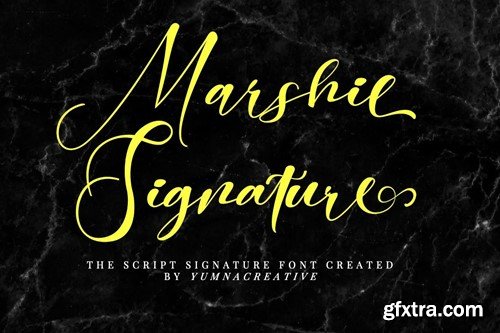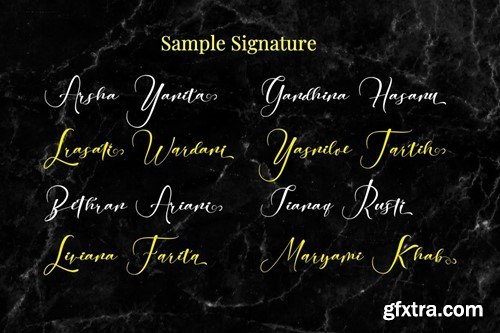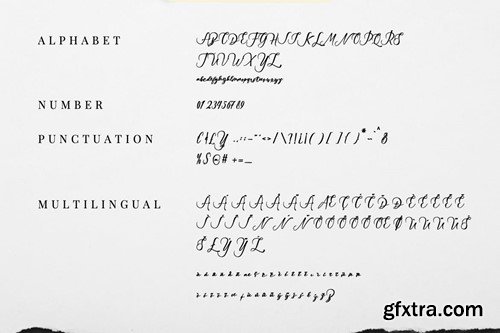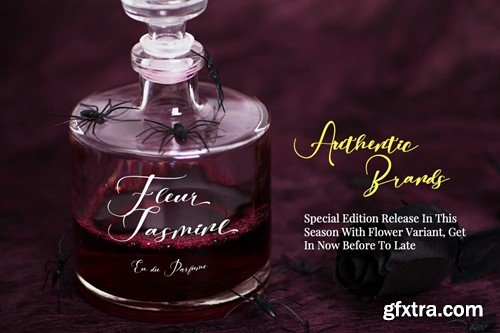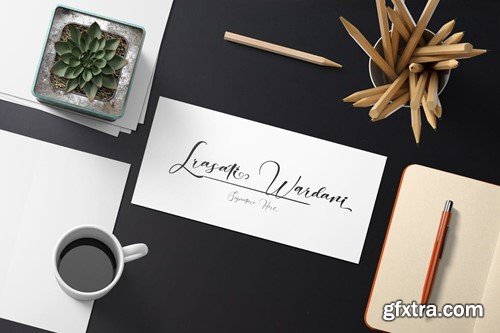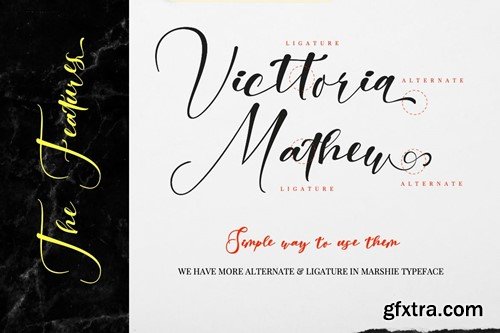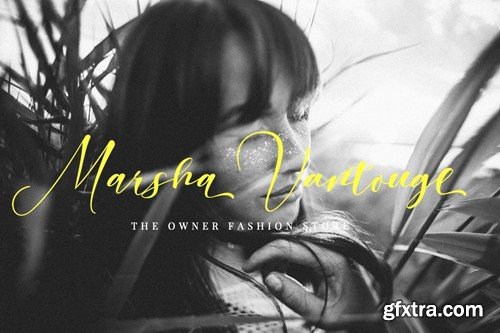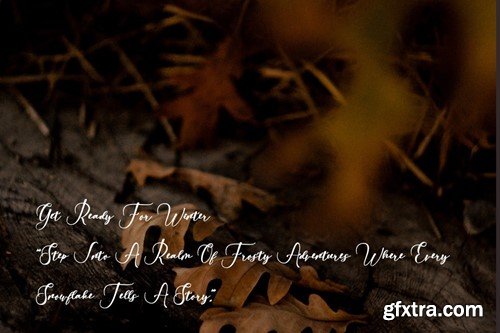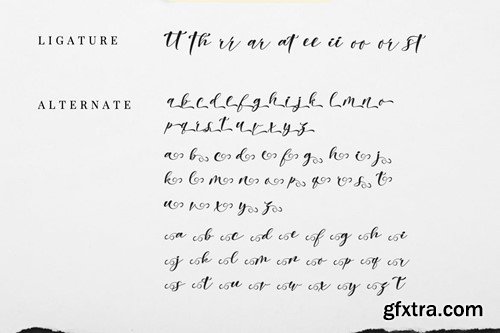
Introducing Marshie - Script Signature Font This Font is a delicate, elegant and flowing handwritten font. It has beautiful and well as a unique blend of ligatures a letter, so that the authors compose it with a and little swirly embedding, so that a modern font is formed and ready to make a statement by adding elegant and unique flair to your next design project. Add it to your most creative ideas and notice how it makes them come alive! FEATURES FILES INCLUDED Got any questions? Drop me a line and I'll be happy to answer!
• Uppercase & Lowercase
• Alternate & Ligature
• Numbering & Punctuation
• Multilingual Supports